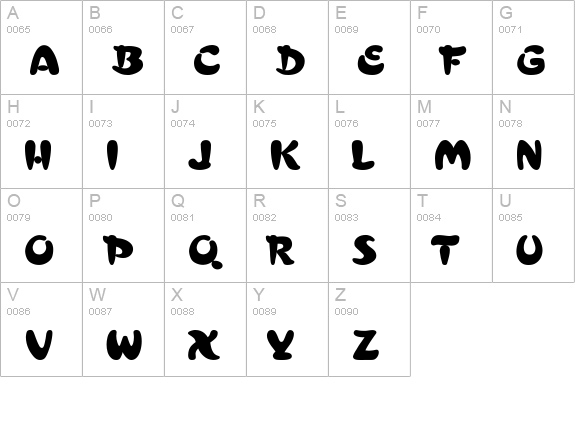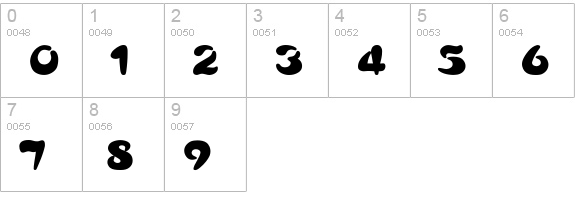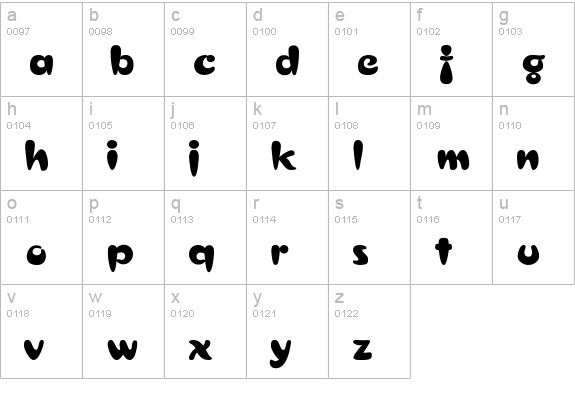
Croissant Wd Font Details
Croissant Wd font is a modern and stylish typeface that combines elegance with a touch of playfulness. Its unique design features rounded edges and a slightly condensed appearance, making it perfect for a wide range of design projects. Whether you're creating branding materials, invitations, or social media graphics, Croissant Wd font is sure to make your text stand out. What's even better is that Croissant Wd font is completely free to download at FontsMarket.com. This means you can add this versatile typeface to your font collection without any cost. Don't miss out on the opportunity to enhance your designs with the charming and eye-catching Croissant Wd font. Download it today and let your creativity shine!